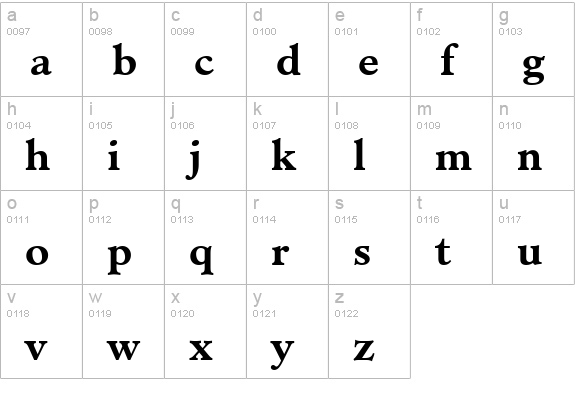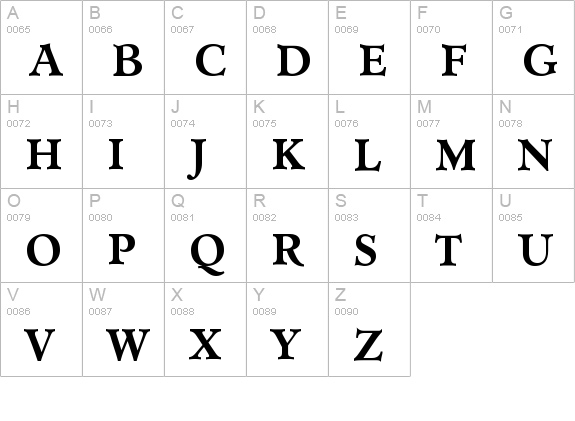
Cleric SSi Bold Font Details
Cleric SSi Bold is a strong, high-contrast variant in the Cleric typeface family \xE2\x80\x94 well suited to headlines, attention-grabbing titles, and strong calls-to-action.
Cleric SSi Bold font is a modern and elegant typeface that exudes sophistication and professionalism. With its bold and impactful design, this font is perfect for making a statement in any project. Whether you're designing a logo, creating branding materials, or crafting eye-catching headlines, Cleric SSi Bold will ensure your text stands out. The best part? Cleric SSi Bold font is available for free download at FontsMarket.com. This means you can easily access and use this stylish font in your projects without any financial constraints. Don't miss out on the opportunity to elevate your designs with Cleric SSi Bold font - download it today and make a lasting impression!